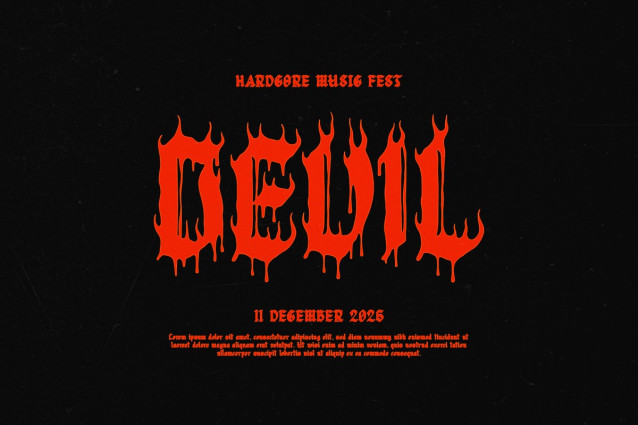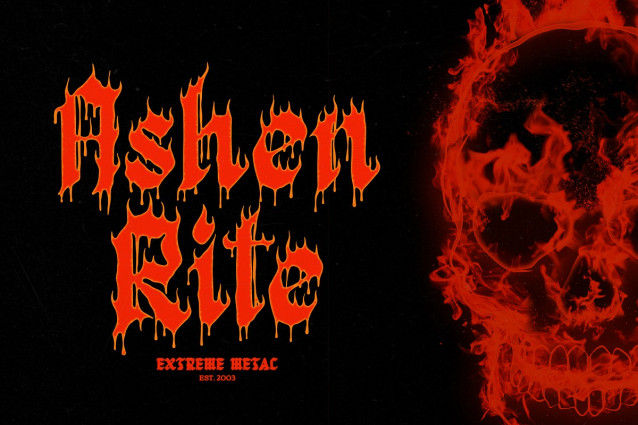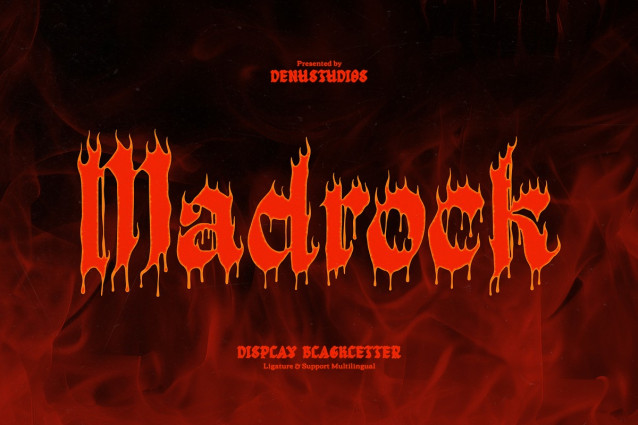
Madrock Display Font
Madrock Display Font | Display Blackletter, from Denustudios, suitable for any projects such as: logos, branding projects, homeware designs, product packaging, mugs, quotes, posters, shopping bags, t-shirts, book covers, name card, invitation cards, greeting cards, label, photography, watermark, special events, and all your other lovely projects that need a Blackletter taste.